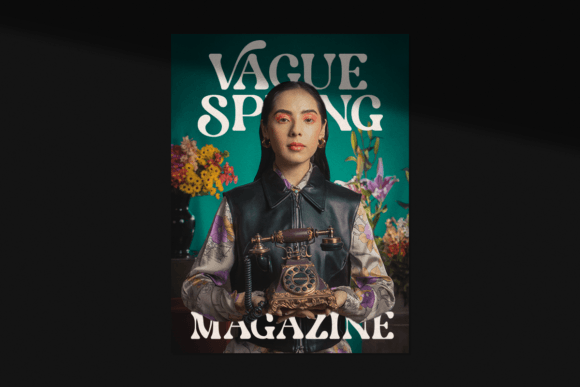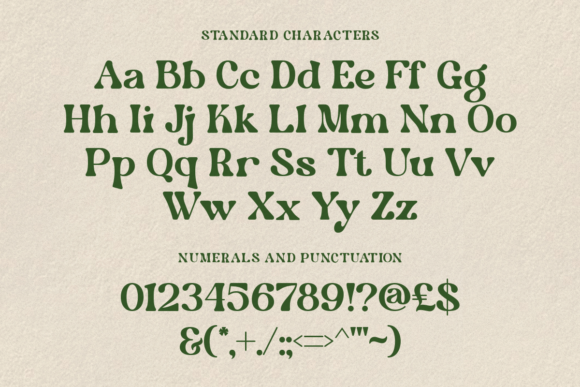
Cherry Mango Font
Introducing Cherry Mango, a playful serif font crafted by Windfall Studio. This delightful typeface combines whimsical charm with a touch of elegance, making it perfect for a wide range of creative projects. Whether you’re designing eye-catching headlines, vibrant posters, or inviting wedding stationery, Cherry Mango’s unique style brings a refreshing burst of personality to your work.
Its carefully designed serifs and playful curves create a harmonious balance between sophistication and fun. Ideal for branding, product packaging, social media graphics, and more, Cherry Mango seamlessly integrates into any design, adding a dash of retro flair and a hint of modernity.
Elevate your projects with Cherry Mango, and let your creativity flourish with this versatile and captivating font. Perfect for those searching for keywords like serif, playful, retro, elegant, stylish, branding, and more, Cherry Mango is your go-to font for adding a touch of joy and sophistication to your designs.